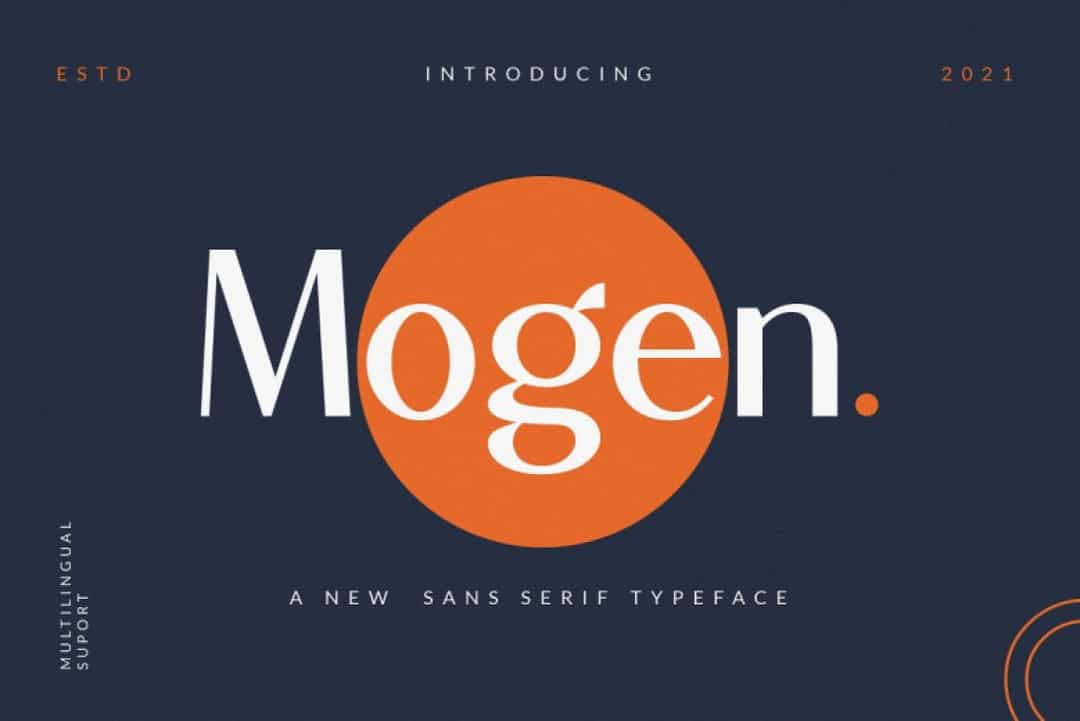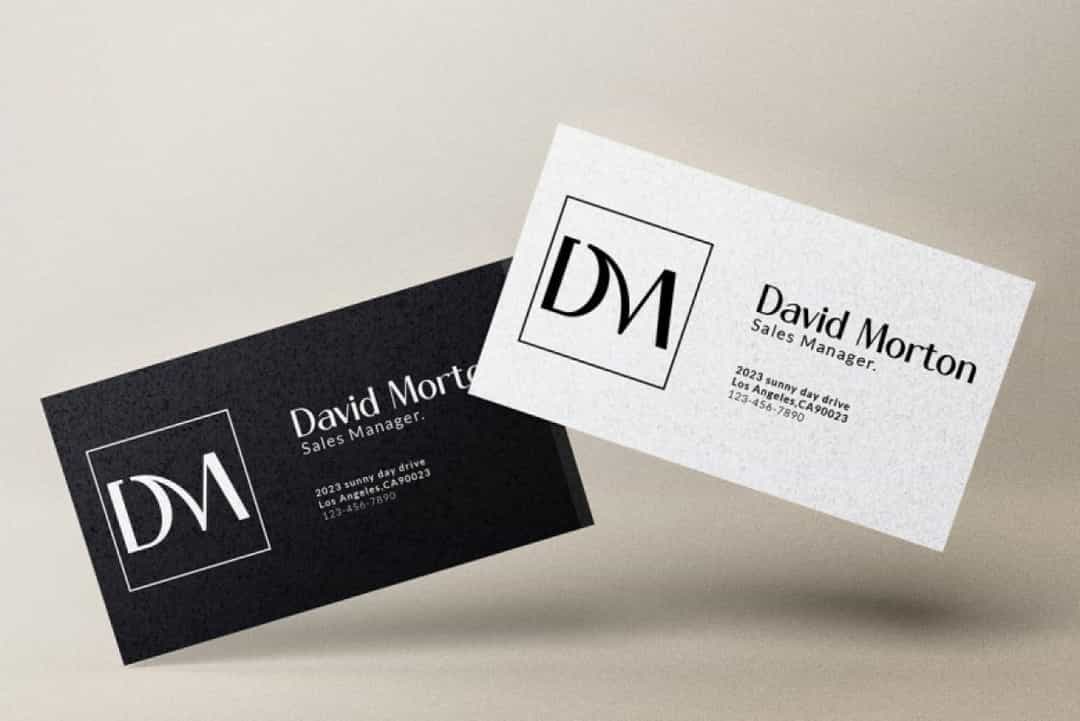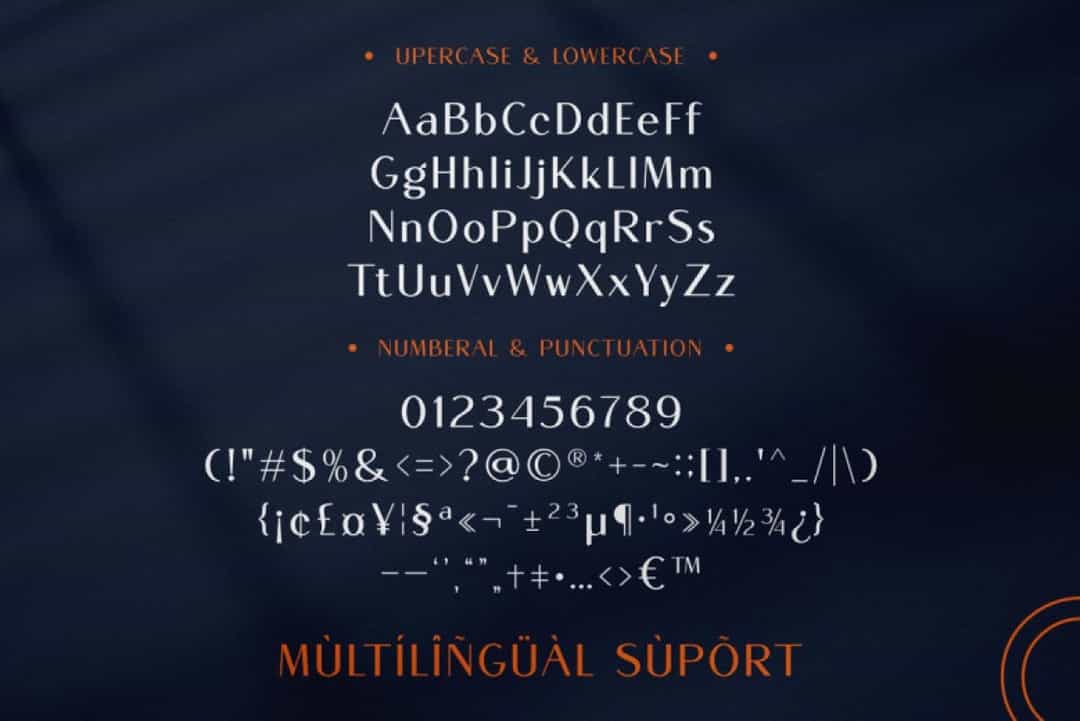
Mogen is a modern and contemporary Sans Serif font. It is minimalist elegant and beautiful; giving an air of soft beauty in any situation. Letter dimensions and common sense remain contemporary yet retain an elegant and functional structure for ease of reading.